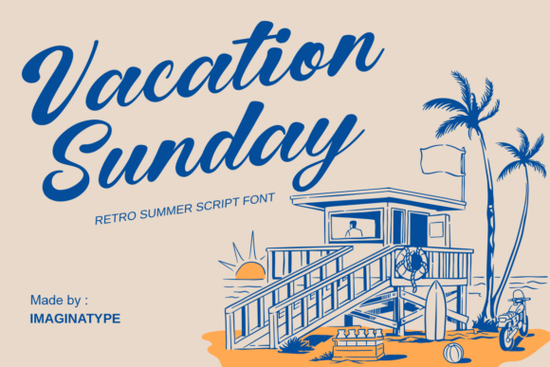
If you are looking to bring a warm, nostalgic vibe to your next project, the Vacation Sunday Font is a fantastic choice. It captures the golden era of sun, surf, and mid-century style without feeling overly dated or messy. Unlike rough brush scripts, this typeface offers smooth connections and voluptuous curves that give your work a premium yet playful finish.
What makes this retro script stand out from other vintage styles?
Many retro typefaces rely on distressed textures, rough edges, or heavy grunge effects to look old. This font takes a completely different approach by focusing on confident weight and rhythmic flow. It instantly reminds us of classic baseball jerseys, vintage 60s postcards, and old-school surf shop signage. If you usually work with chunky script styles, you will appreciate how this design balances heavy letterforms with seamless, elegant connections. It avoids the unpredictable splatters of some brush pens, giving you a clean, creamy finish that reads beautifully at both large display sizes and smaller text scales. The smooth ligatures make it feel incredibly polished, which is perfect when you need a professional look for a client.
How can I apply it to print-on-demand and small business branding?
When creating merchandise or packaging, readability is just as important as aesthetics. Because of its clear structure and generous x-height, this typeface works wonderfully on physical products. Crafters and print-on-demand sellers will find it highly versatile for a variety of items:
- Apparel: It looks stunning printed on t-shirts, caps, and tote bags for coastal, lifestyle, or summer-themed brands.
- Packaging: It adds an inviting vintage touch to food, beverage, and cosmetic labels that need to stand out on a shelf.
- Branding: It helps create timeless wordmarks for coffee shops, surf brands, or travel agencies looking to build trust.
If you prefer a lighter, more delicate look for certain product lines, you might contrast this with clean, even strokes found in single-line handwriting options. However, for making a bold statement on a retro travel poster, a summer sale banner, or a custom mug, this specific beachy typeface commands attention while keeping a laid-back, approachable vibe.
What other typefaces pair well with it for complex layouts?
A common question designers ask is how to mix scripts without making the layout look cluttered or confusing. Since this font has a very strong, distinct personality, it pairs best with simpler secondary fonts. If you are designing a multi-page menu, a zine, or a wedding invitation suite, you can use romantic pairing options for the main headers and keep the body text in a clean, highly legible sans-serif. For a more modern, personalized touch on custom gifts or social media graphics, combining it with fluid autograph looks can create a beautiful contrast between structured retro curves and casual, everyday handwriting. This layering technique keeps the viewer's eye moving naturally across the design.
- Check the spacing manually: Always adjust the kerning by eye, especially around the capital letters and where the swashes overlap.
- Mind the negative space: Ensure there is enough breathing room around the voluptuous curves so the design doesn't feel cramped on small items.
- Test your color palette: Preview the font in both dark and light backgrounds to see how the creamy weight holds up against different materials.
- Keep it concise: Use it sparingly for short phrases, quotes, or headlines rather than trying to force it into long, dense paragraphs.